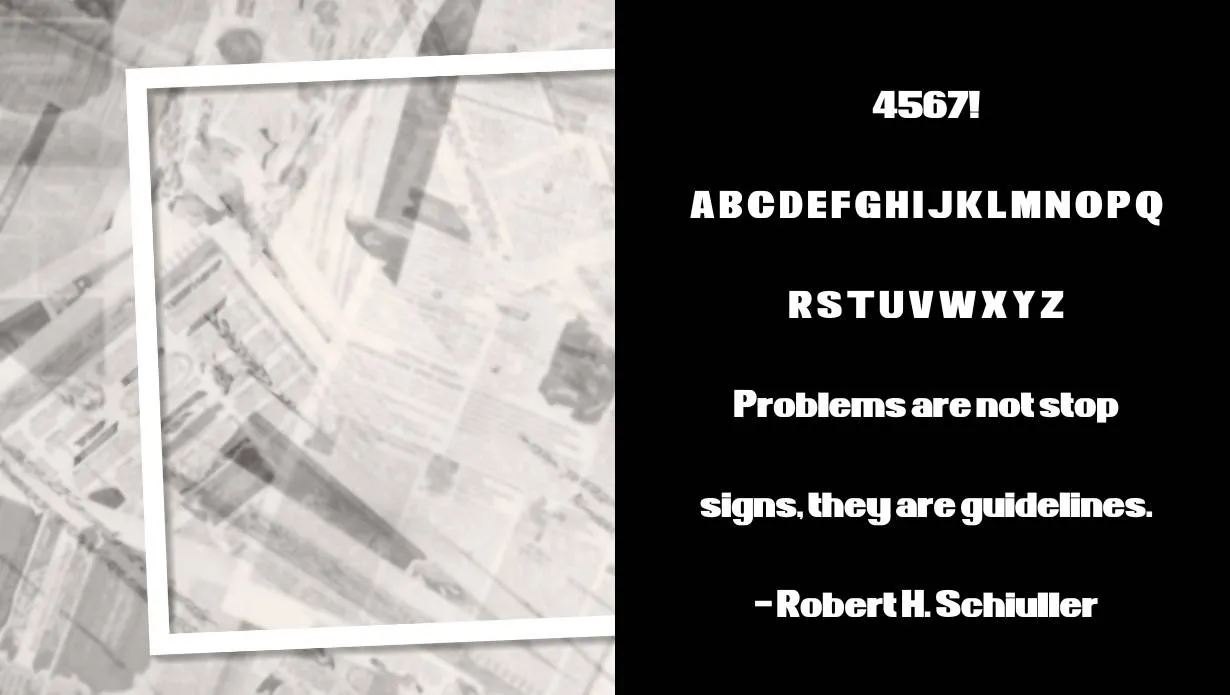
The News of The World Font is a timeless creation by Sir Edward John Poynter in 1869. This font, nestled within the display texture family, stands as a testament to Victorian design elegance. Available in both OTF and TTF formats.